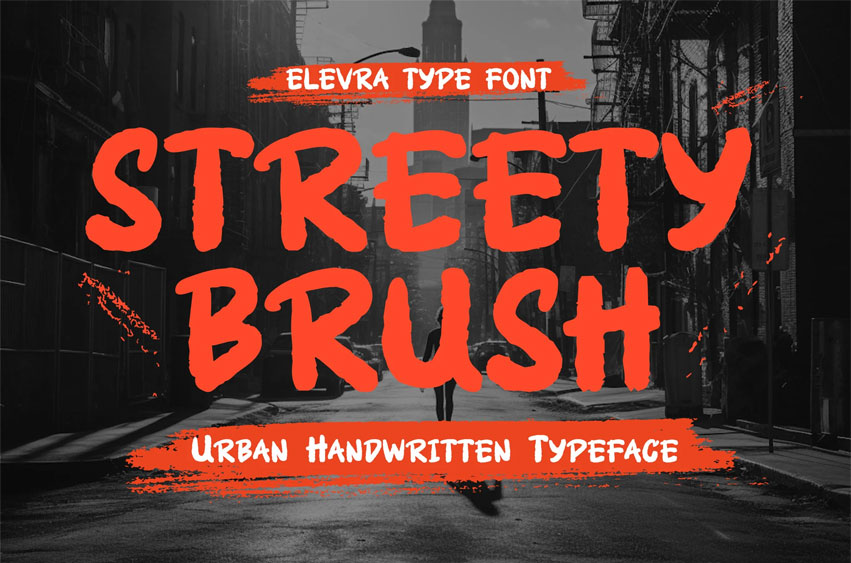
Streety Brush Font is an expressive urban handwritten brush font that blends raw street energy with bold artistic flair. Each stroke carries the feel of real hand-painted textures, making this typeface stand out with its authentic, gritty personality. Inspired by graffiti, street art, and urban signage, Streety Brush brings a fearless and energetic vibe to your designs.
Perfect for posters, music covers, and creative social media graphics, this font adds a touch of rebellion and street style to any project. The bold brush lines and imperfect edges give it a natural rhythm, allowing your message to pop with attitude and movement.
Whether you’re designing for music, film titles, event flyers, or YouTube thumbnails, Streety Brush delivers an edgy yet approachable handwritten look that demands attention. Make your visuals loud, dynamic, and unmistakably urban with this bold display font.
- Authentic handmade brush texture
- Uppercase, lowercase, numbers & punctuation
- Great for posters and logo design
- Multilingual support